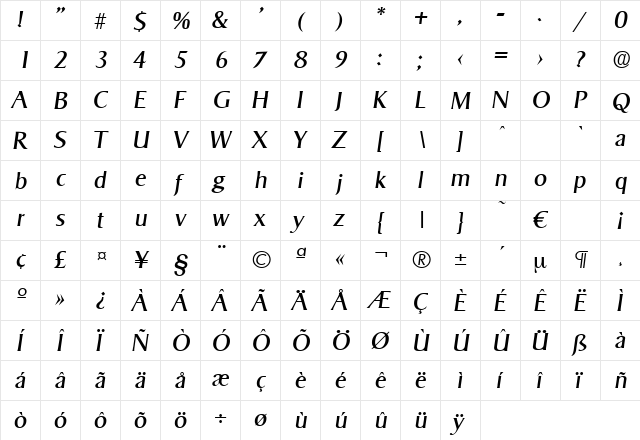
Sigvar-RegularIta Regular
Design Context for Sigvar-RegularIta Typeface
Sigvar-RegularIta offers clean, dependable letterforms without strong stylistic allegiance, making it a practical choice for designers who need flexibility.